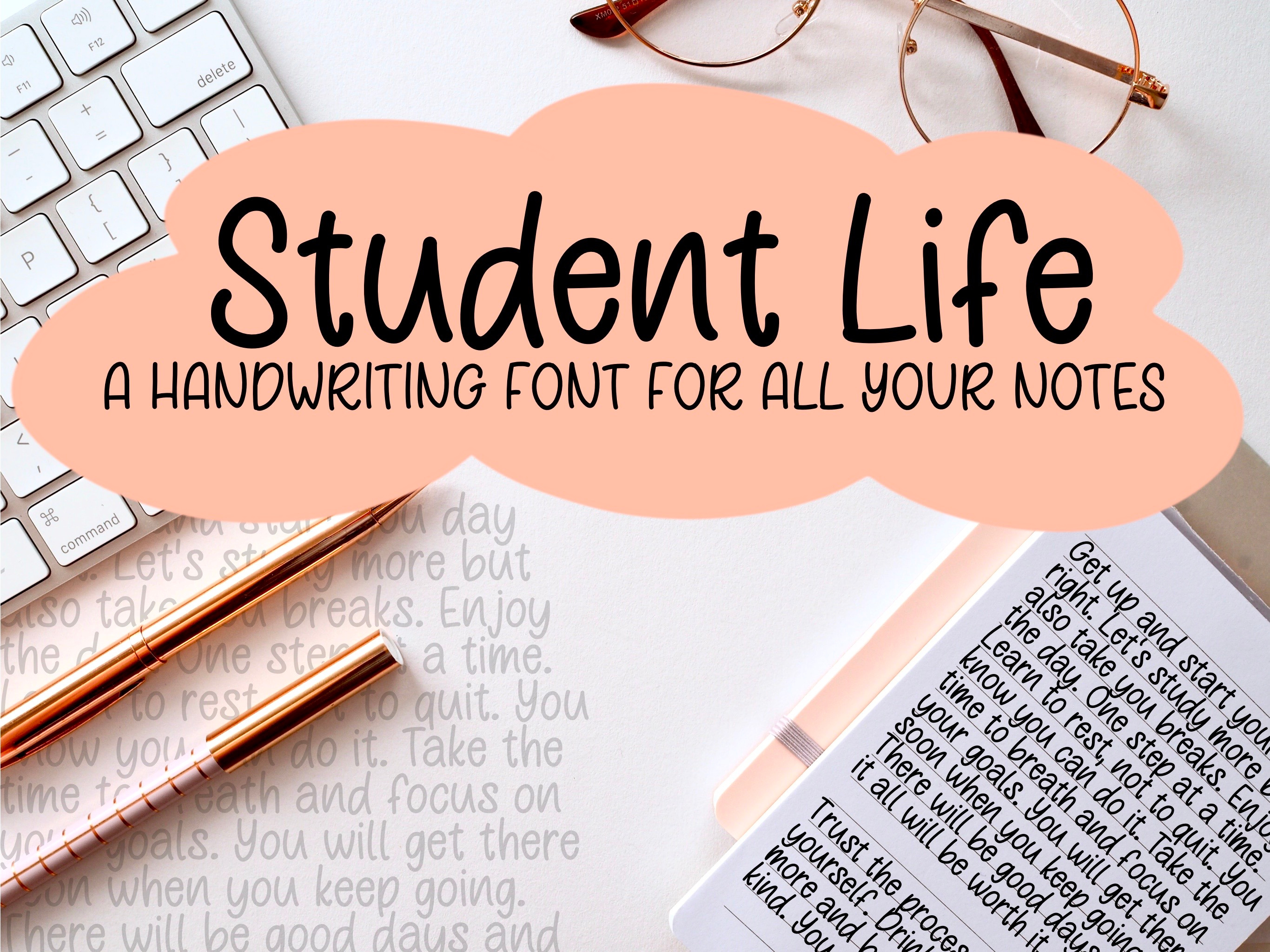
Student Life handwritten font
❤ STUDENT LIFE OTF FONT Do you need some font to bring your notes to the next level? Use this handwritten font with a tidy and neat style to type documents or study notes. You could also use it also to create some art or on different projects on Procreate, Goodnotes, Notability & Microsoft Word. To see which characters are included, please have a look at the listing image.
- Uppercase Letters
- Lowercase Letters
- Non-English Characters